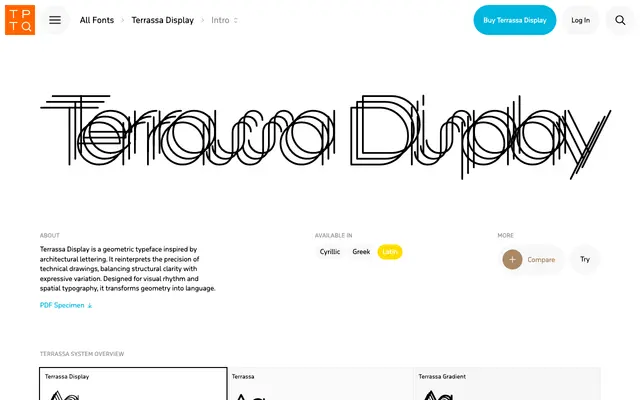
Terrassa Display
Typotheque · Nikola Djurek · 2025
A modular variable display typeface by Nikola Djurek, built around architectural drafting geometry with layered outlines and a proportional weight-scaling system.
Part of a three-member system alongside Terrassa and Terrassa Gradient, the Display variant adds layered outlines and architectural repetition to the family's core monolinear geometry. Five variable axes replace what would otherwise be over 10,000 static instances, allowing fine control over stroke weight, layer depth and spatial rhythm. The proportional weight calculator, drawn from drafting practice, lets designers keep stroke widths consistent as type scales, preserving optical clarity across sizes.
Terrassa Display is a modular geometric display typeface with variable layered outlines and architectural repetition, taking clear cues from technical drawing and engineering lettering rather than any historical type revival.
Variable weight axis (100–496 range)